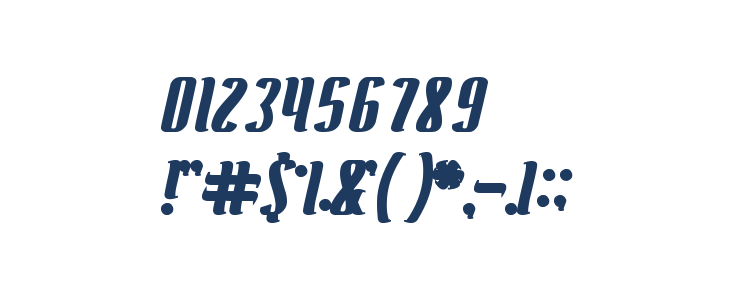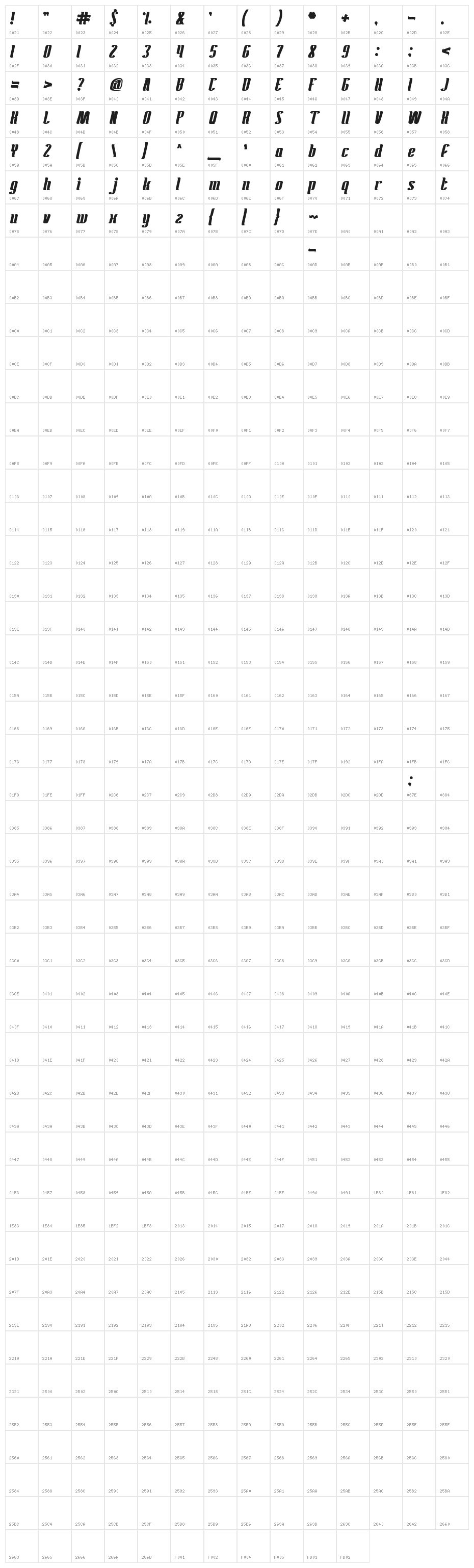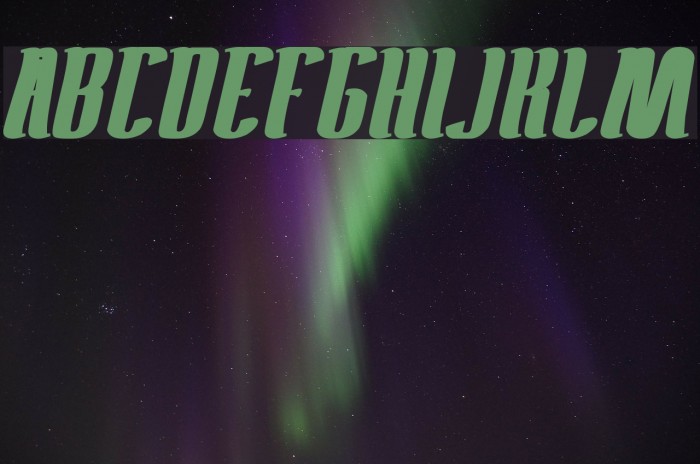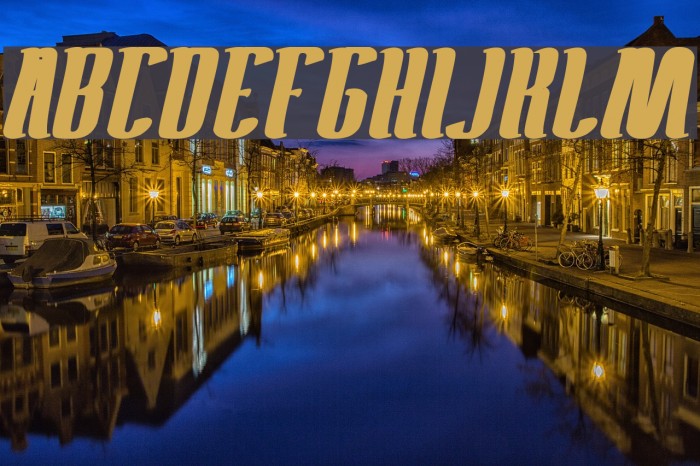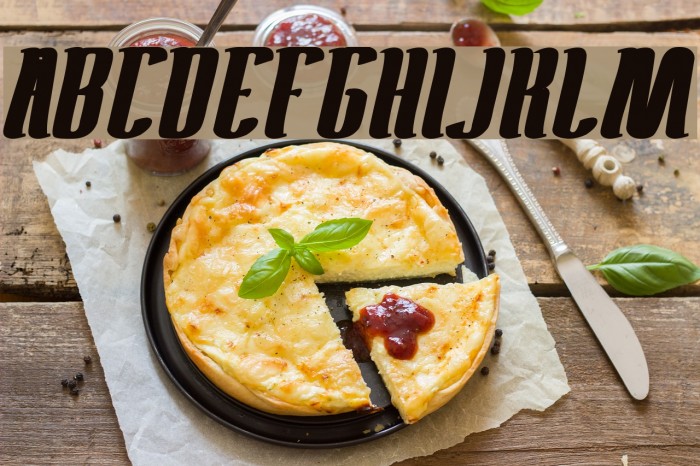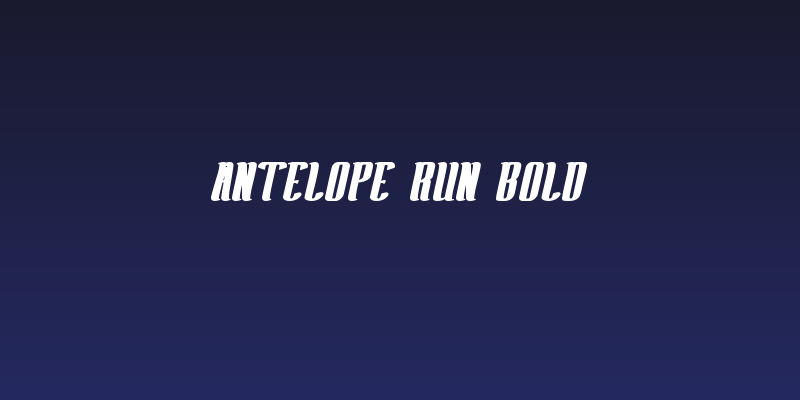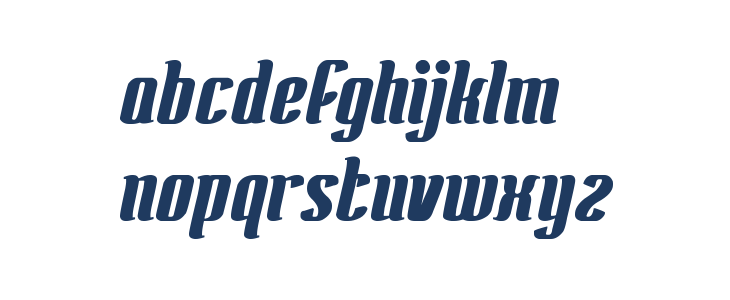
Antelope Run Bold Font
Antelope Run Bold Description
This font features a bold and dynamic style with a strong presence. The characters are slightly slanted, giving a sense of movement and energy. The strokes are thick and consistent, providing a robust and impactful appearance. The uppercase letters are tall and commanding, while the lowercase letters maintain a cohesive flow. The numbers are clear and legible, matching the boldness of the alphabet. Special characters are designed with the same bold strokes, ensuring uniformity across all glyphs. This font is ideal for projects that require a strong visual impact.